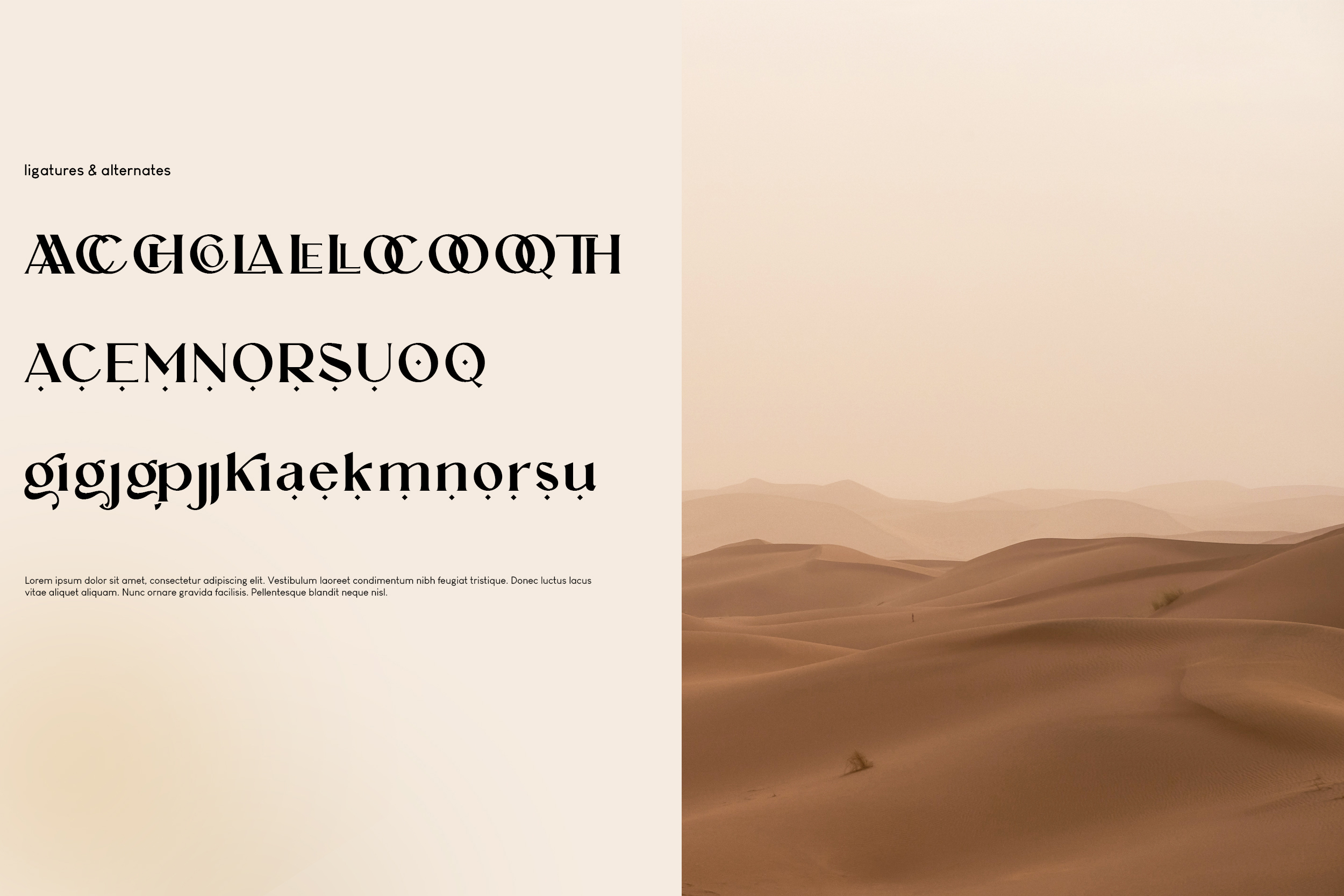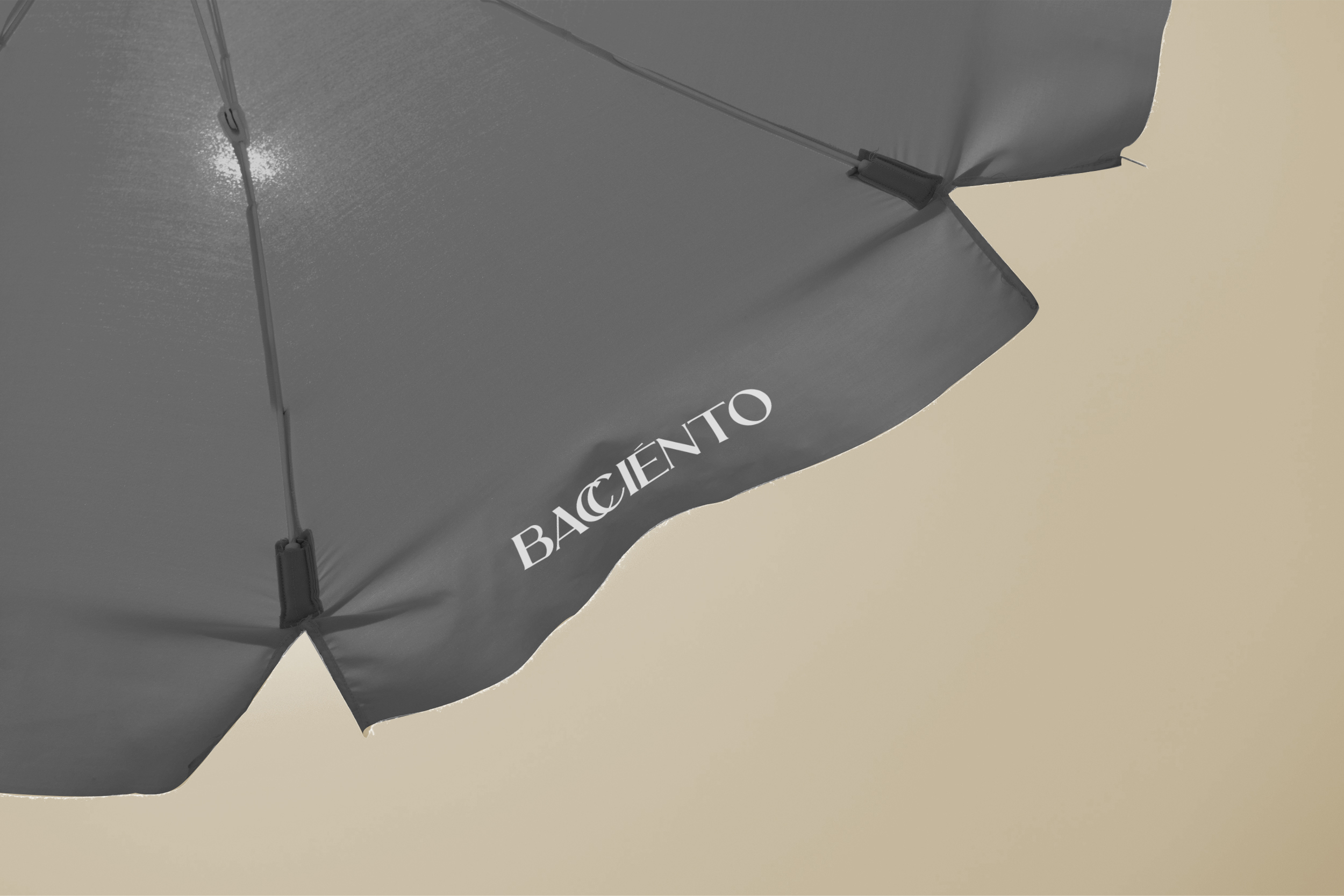
AQRADA Serif Font
It’s an elegant display with aesthetic look. Perfect for who needing a touch of elegancy, classy, stylish, beautiful bold type, and modernity for their design.